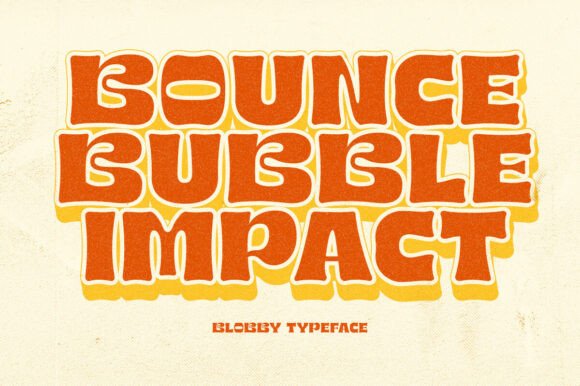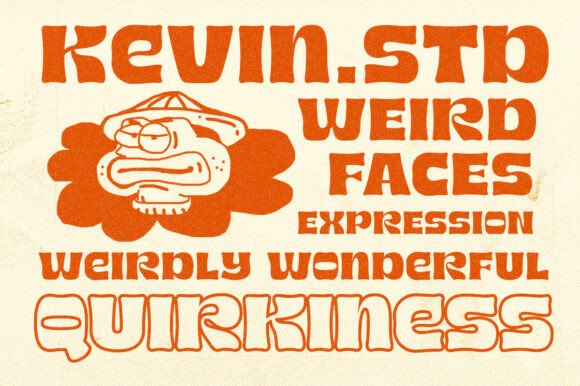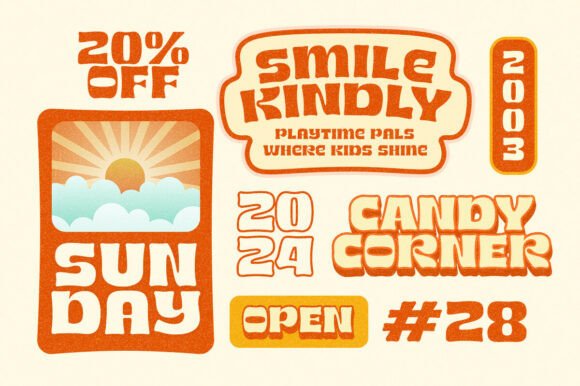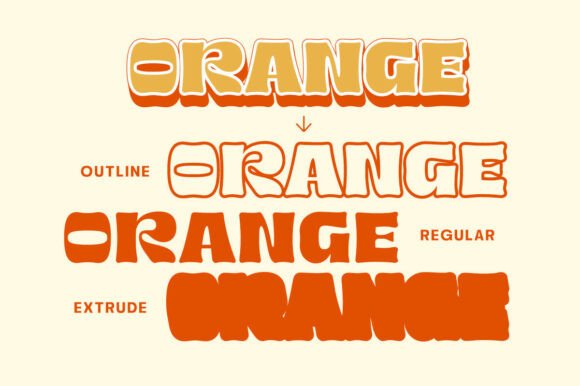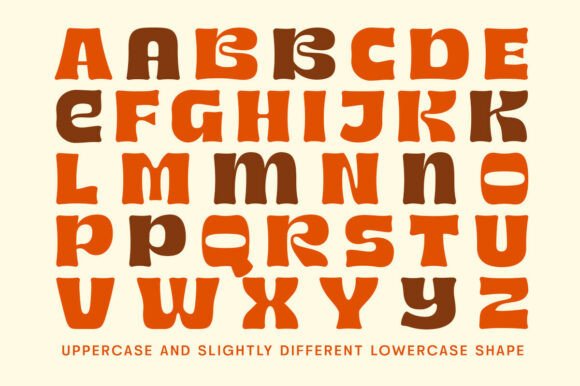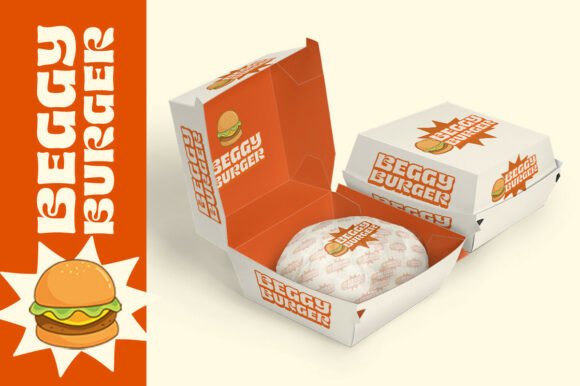
The Retro Revival: Discovering the Blobby Font
I’ll never forget the time I was working on a project to create a retro-style poster for a client’s vintage-themed party. I had all the design elements ready – the colors, the graphics, the overall aesthetic – but something was missing. I was struggling to find the perfect font to give it that authentic, nostalgic feel. That’s when I stumbled upon the Blobby font, and it was love at first sight! 💕
Inspired by the warm, squishy, and funky shapes of 70s pop culture, Blobby is a retro bubble-style font that’s making a comeback in the design world. With its chubby curves, soft edges, and organic hand-drawn look, it’s perfect for creating bold titles, layered effects, and eye-catching retro compositions.
Meet the Blobby Font Family
The Blobby font family consists of **3 playful styles — Regular, Outline, and Extrude**, giving you full flexibility to experiment with different designs. Whether you’re working on posters, packaging, cartoon-style graphics, children’s content, branding, or groovy psychedelic artwork, Blobby has got you covered.
This font family is intentionally imperfect, expressive, and full of character – bringing back the nostalgic warmth of vintage print textures and analog bubble lettering. It’s the perfect addition to your design toolkit if you’re looking to add a touch of retro charm to your projects.
- ✨ The unique, hand-drawn look that gives it a distinct retro feel
- ✅ The versatility of the font family with 3 different styles to choose from
- 💡 The ability to create bold, eye-catching titles and layered effects
- 🎉 The perfect font for creating fun, playful designs for children’s content or party invitations
⚠️ While Blobby is a fantastic font, it’s not suitable for very small font sizes or body text. Its unique features and chunky design are best showcased at larger font sizes.
🤔 Some users may find the font a bit too playful or informal for certain projects, but that’s also part of its charm!
One of the best things about Blobby is its OpenType features and glyphs. These allow you to add more variety and personality to your text. Here are a few tips:
- Use stylistic alternates to create different versions of letters and numbers
- Experiment with ligatures to add a touch of elegance to your text
- Access glyphs like arrows, symbols, and icons to add more visual interest
The Designer Inspiration Behind Blobby
Blobby was inspired by the retro pop culture of the 1970s – think vintage posters, funky advertisements, and playful typography. The designer wanted to capture the essence of that era and bring it back to life in a modern font.
With its intentionally imperfect and expressive design, Blobby is perfect for designers who want to add a touch of nostalgia and whimsy to their work.
| Font Name | Blobby Font |
| Author | Typeskets |
Q: Is Blobby suitable for body text?
A: While Blobby is a beautiful font, it’s best suited for headlines and titles. Its unique design and chunky style may not be suitable for body text.